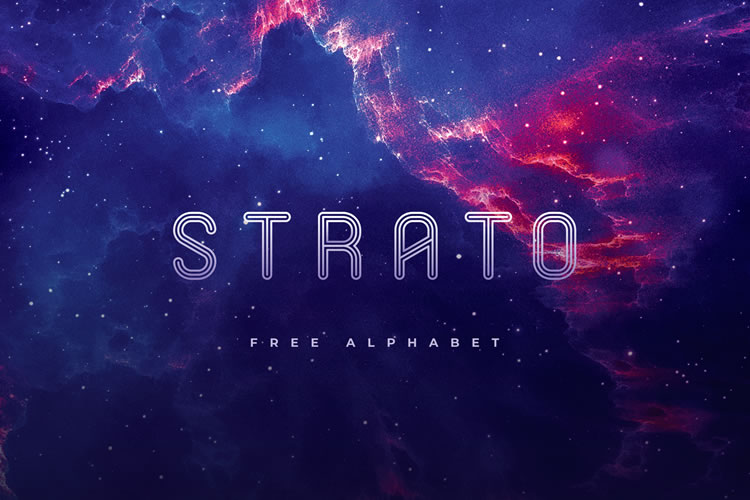
Futuristic fonts are known for their geometric shapes and clean lines, adding a modern touch to typography.They are popular for logo design, digital media, and conveying high-tech aesthetics in projects.The use of futuristic fonts can elevate a brand's sophistication and technological alignment.A curated collection of free futuristic fonts is offered to help make projects stand out and appeal to modern audiences.Examples include Maswen, Halfomania, Science, Planeto, Strato, Necosmic, Bokrun, Great Futuristic, and more.These fonts range from minimalist designs like Science to bold geometric shapes like Planeto.Futuristic fonts like Coder and Lombok cater to technology-related projects, while Venera offers a dynamic look.Other fonts like Orbitron, Angular, Stifly, and Potra provide options for impactful branding and design.Consider the theme and readability when choosing futuristic fonts for projects to align with the design.Pairing futuristic fonts with simpler styles can enhance the overall balance and focus of the design.